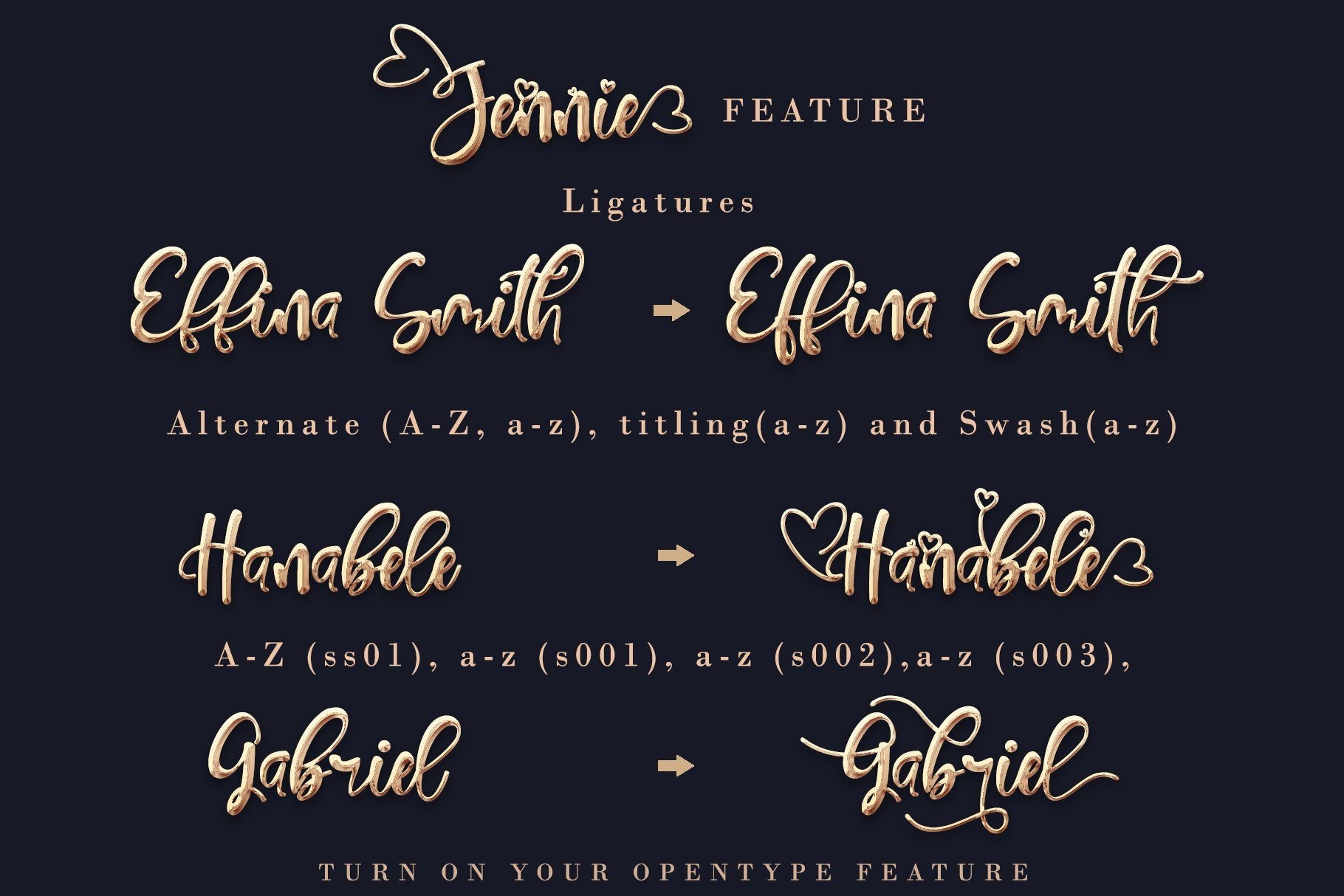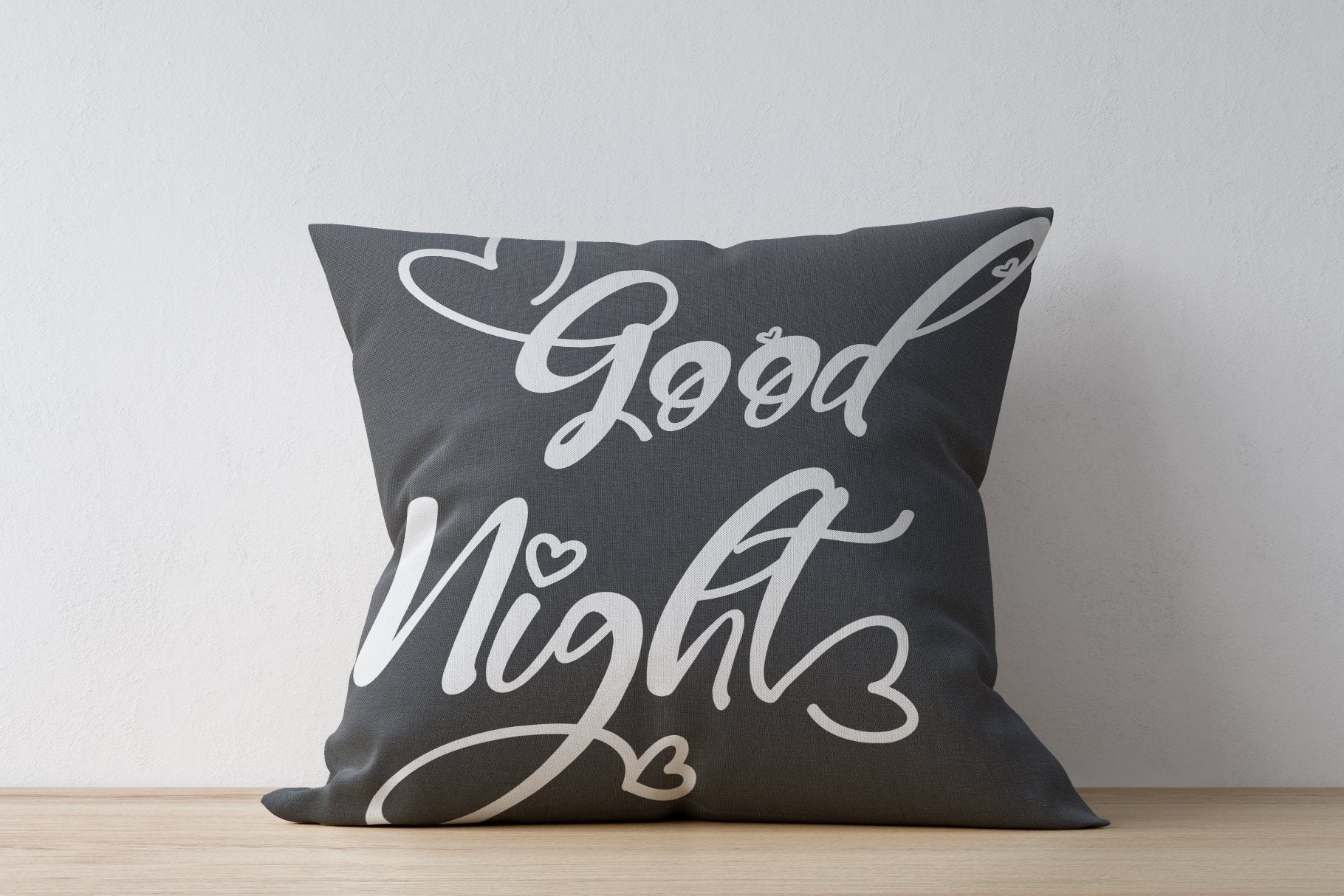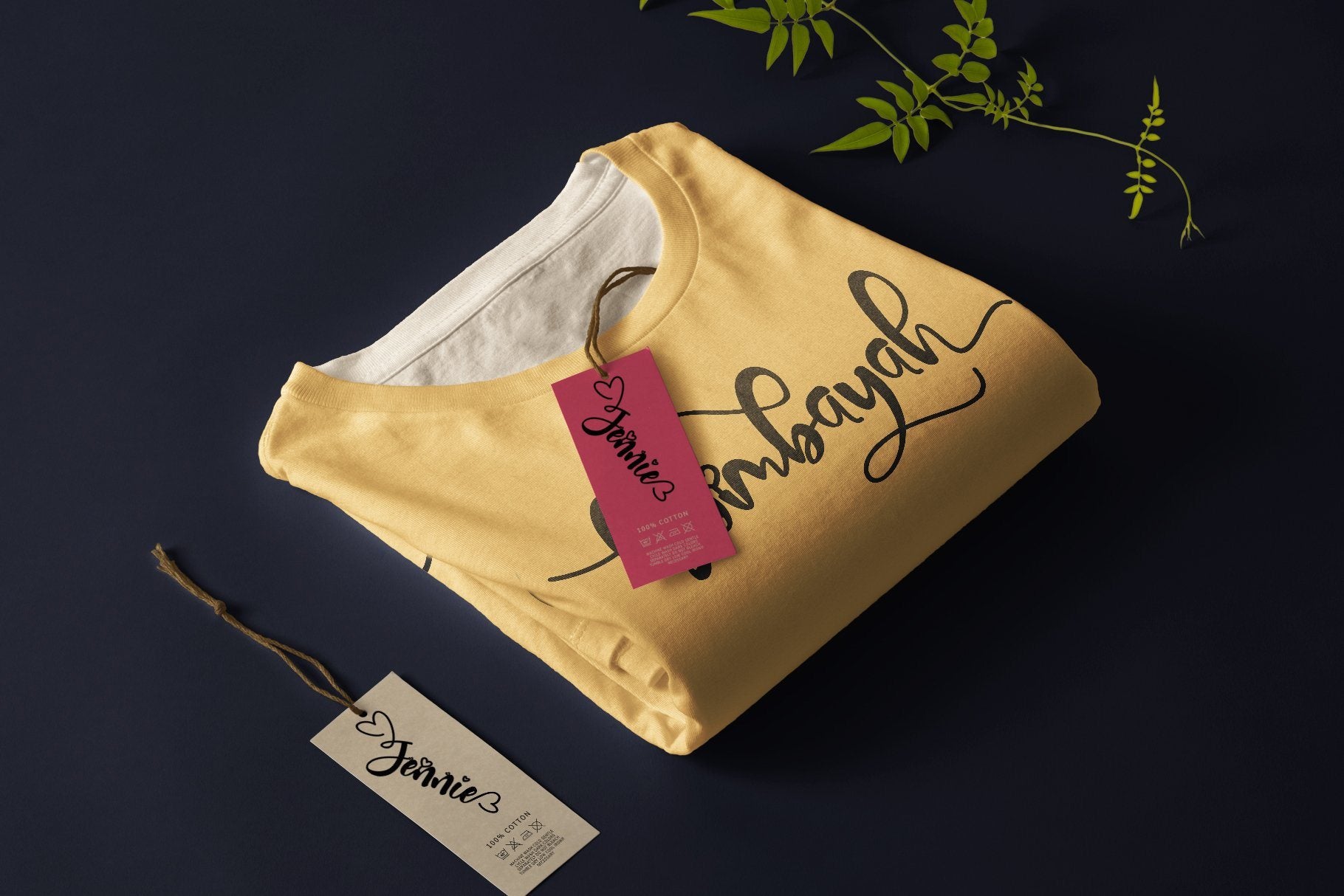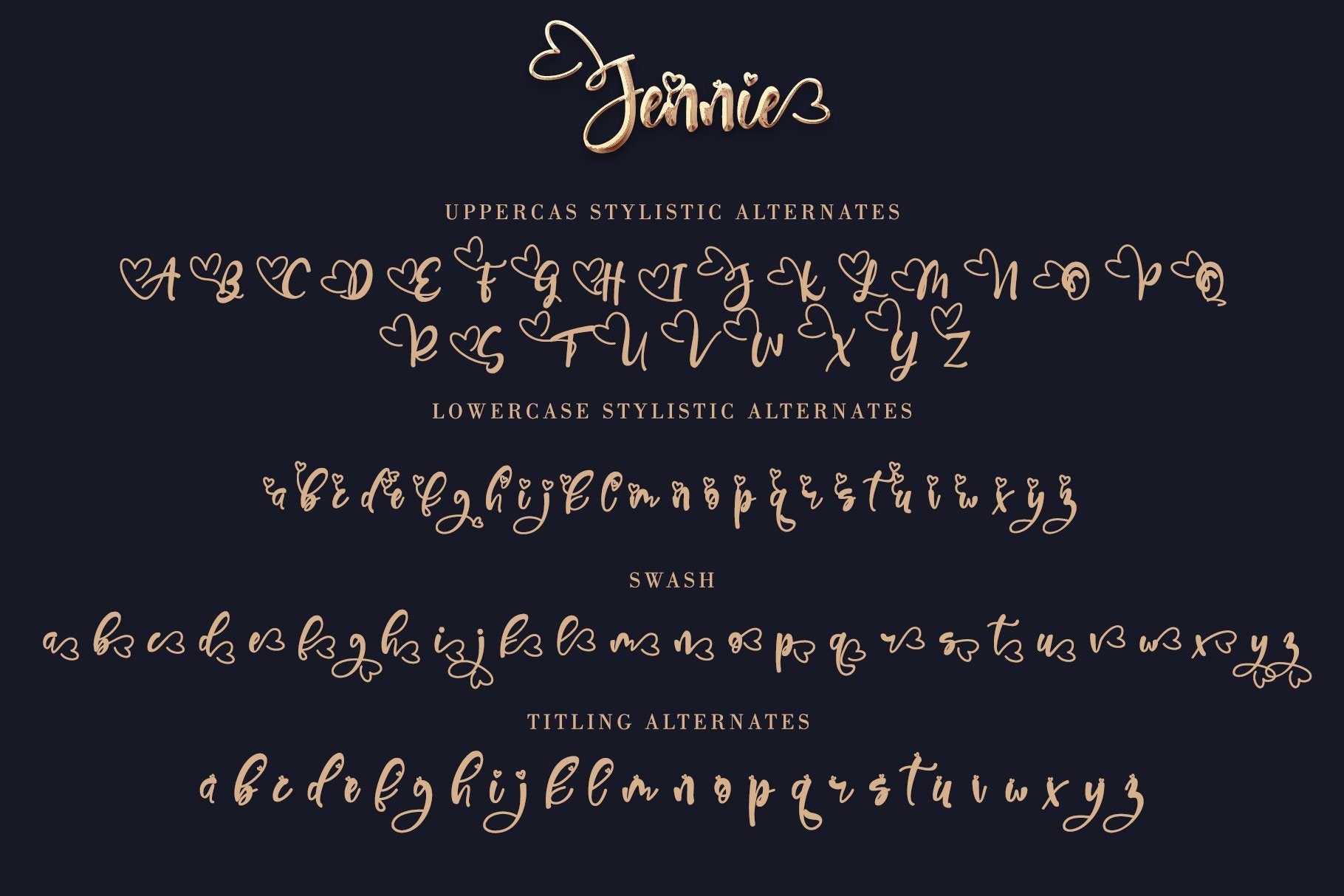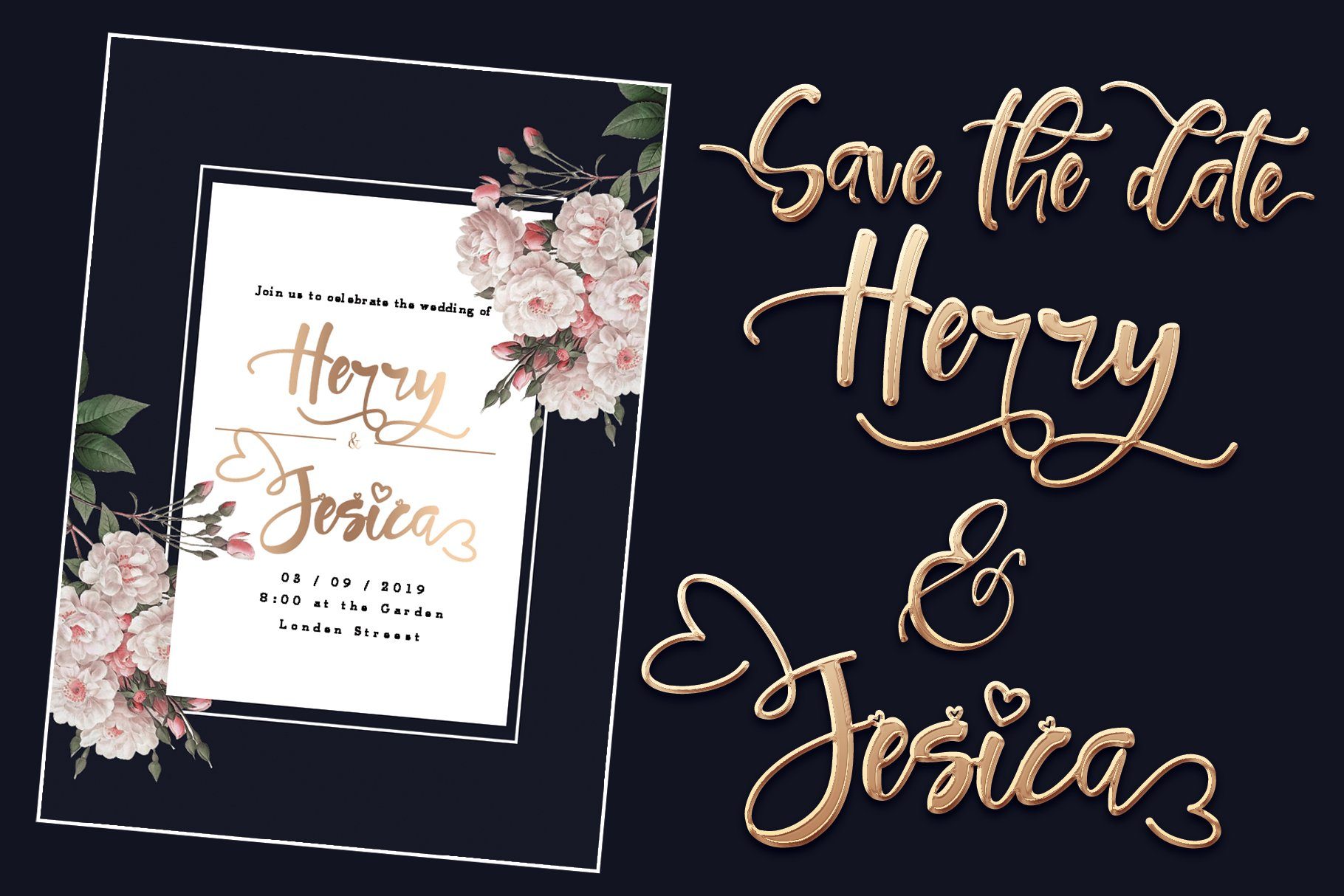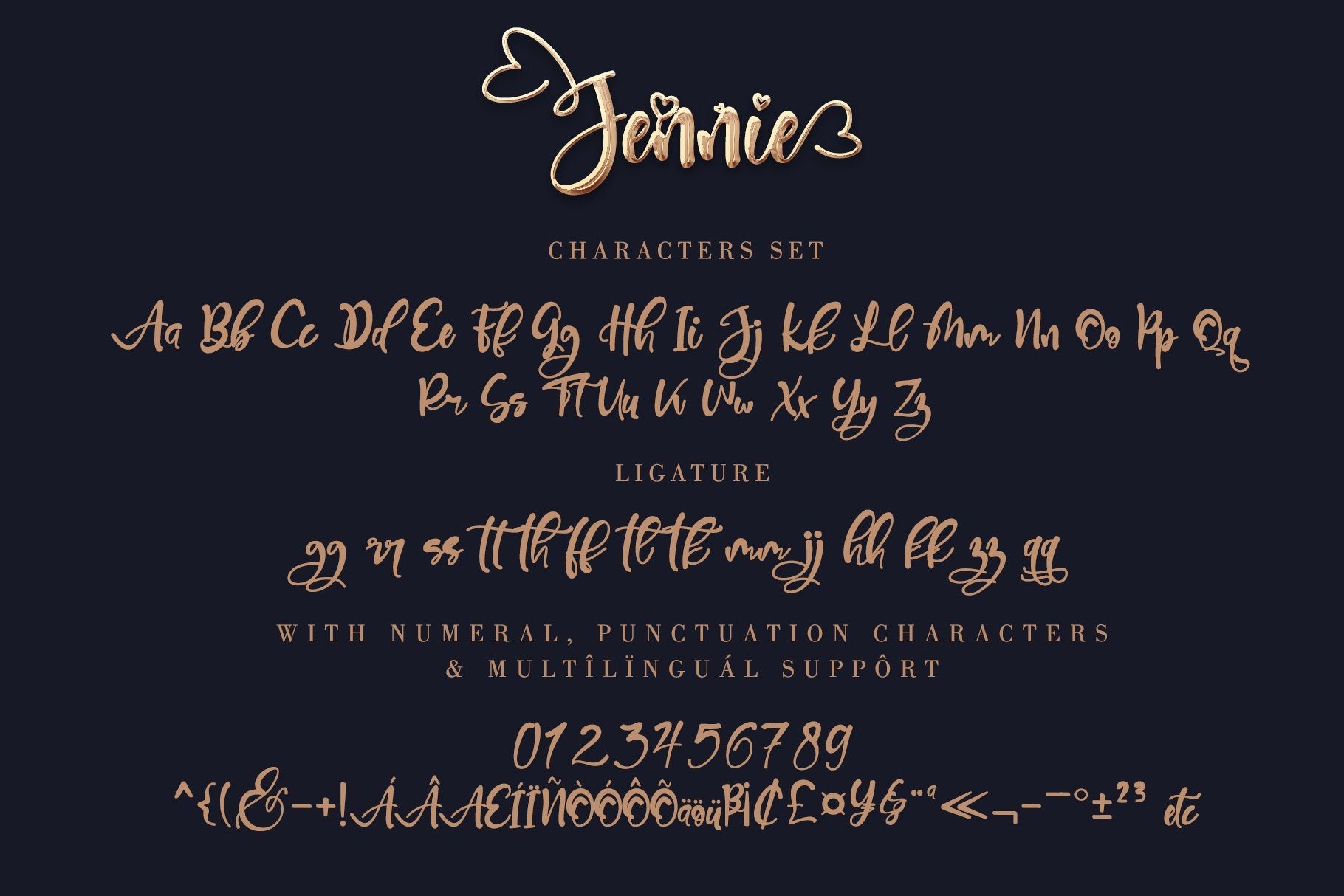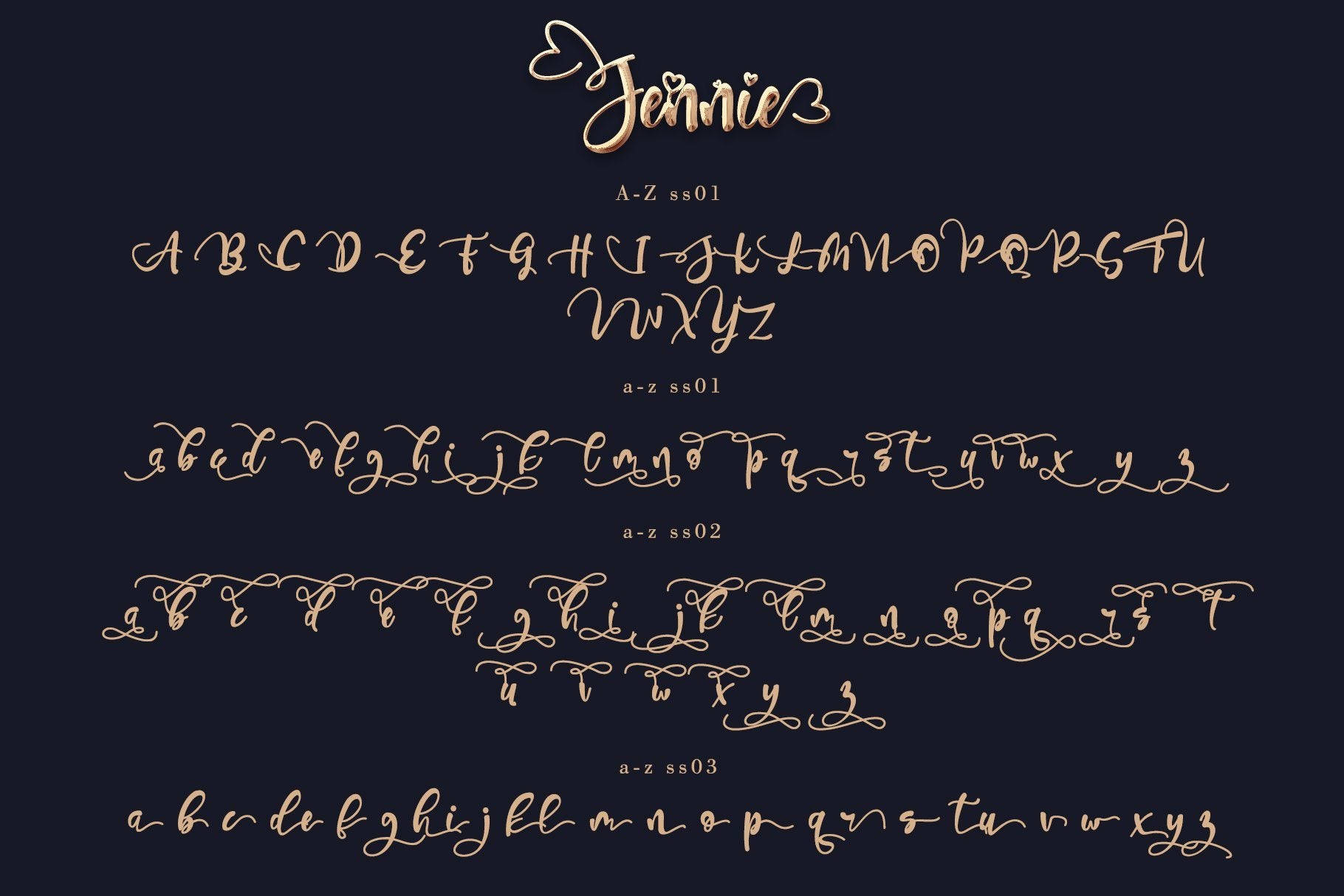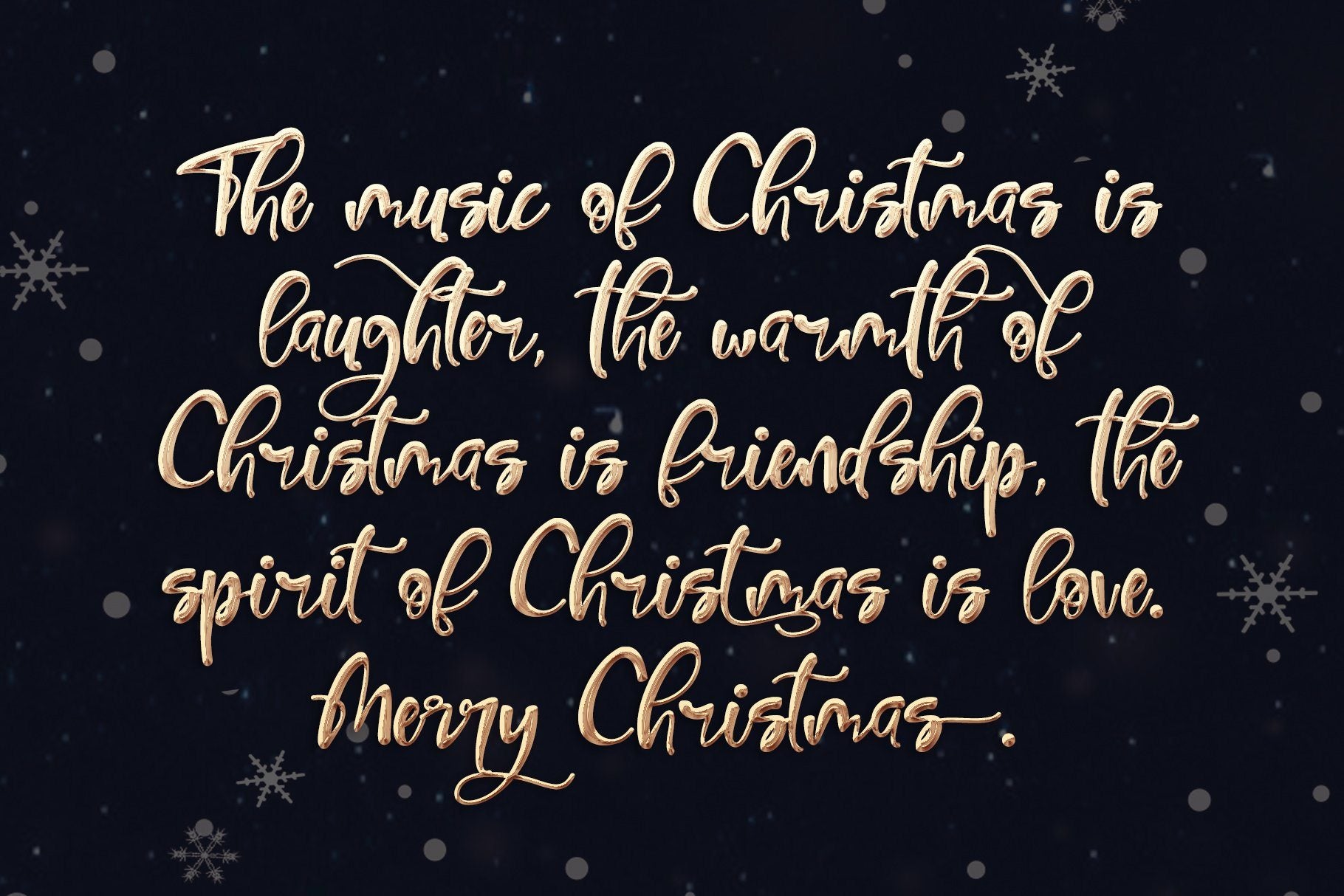
JENNIE
About JENNIE
Jennie is a fun handwritten font with many features that will perfectly fit in winter and Christmas projects . It can be used for various purposes such as: t-shirts, posters, cards, Christmas and holiday invitations, wedding invites and stationery, logos, etc. don’t wait anymore, put it in your shopping basket 🙂 and follow me, because there will be many promos! Features : – Many Features – Upper Case & Lowercase – Numerals – Punctuations (OpenType Standard) – Accents (Multilingual characters) – Ligatures and Alternative Style Stylistic Set – Works on PC & Mac – Simple installations – Accessible in the Adobe Illustrator, Adobe Photoshop, Adobe InDesign, even works on Microsoft Word. don’t wait anymore, put it in your shopping basket 🙂 and follow me, because there will be many promos! Thanks for checking out my store, and feel free to get in touch if you have any questions!  Thank you 🙂 Our other products : BEST SELLER BLACK PINK SIGNATURE ANDORA BRIGITTA HEANFFE EIFFEL IN LOVE ( FONT TRIO) BLACK PINK SUMMER HONG KONG ANGEL MALEFICENT California Street BESTOWENS FAMILY